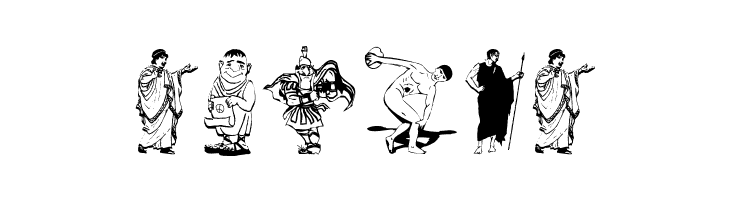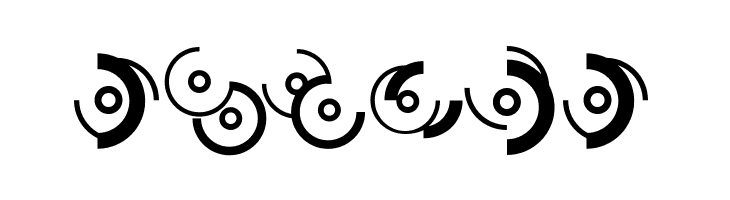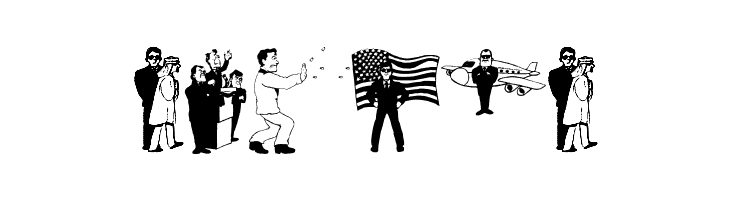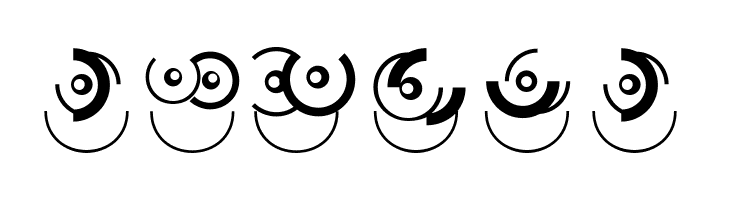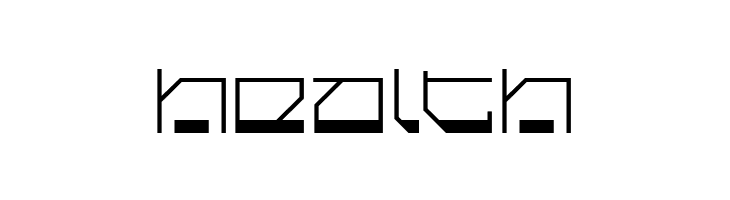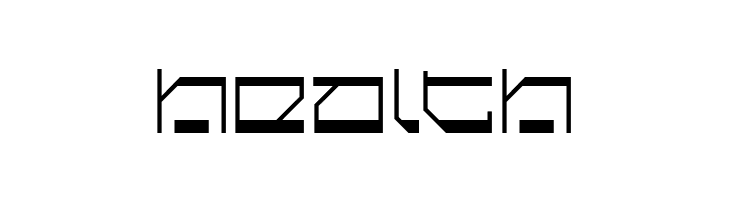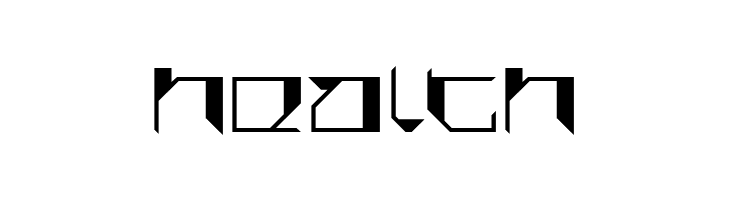
A playful font combining musical notes with geometric shapes for a unique, artistic style.
A modern, geometric font with clean lines and a minimalist style.
A modern, geometric font with clean lines and rounded edges.
A modern, bold italic font with smooth curves and a dynamic slant.
A sleek, modern italic font with geometric precision and clean lines.
A bold, geometric font with sharp angles and thick strokes, perfect for impactful designs.
A collection of festive and whimsical icons themed around celebrations.
A distressed, textured font with a vintage, industrial feel.
A bold, whimsical font with playful swirls and curls.
A decorative font with intricate bird and nature-inspired designs.
Ornate pictorial dingbat font with vintage woodcut illustrations.
A whimsical collection of vintage-style illustrations depicting classic clichés.
Highly detailed animal illustration dingbat font.
A classic serif typeface with elegant curves and strong readability.
Cartoonish, hand-drawn font with each character as a unique animal or figure.
A decorative font with abstract, face-like characters and bold geometric designs.
Illustrative dingbat font depicting outdoor sports.
A geometric, outlined font with a modern, futuristic style.
A whimsical font featuring cartoonish character heads with playful expressions.
An artistic and decorative font with abstract illustrations inspired by Picasso.
A playful and casual handwritten font with rounded, dynamic strokes.
A bold, rounded, handwritten-style font with a playful and casual vibe.
A bold, italicized, rounded handwritten font with a playful and dynamic style.
A dynamic, rounded italic script font with a fluid, elegant style.
A modern and elegant font with playful curves and dynamic strokes.